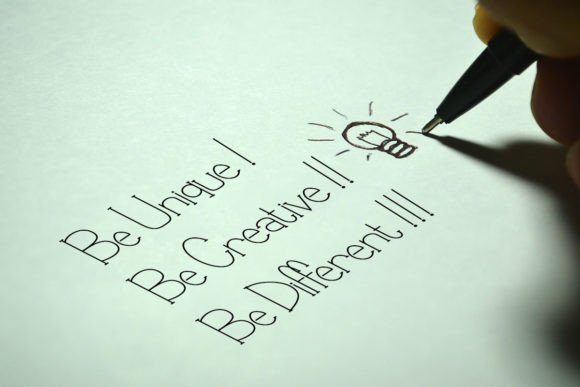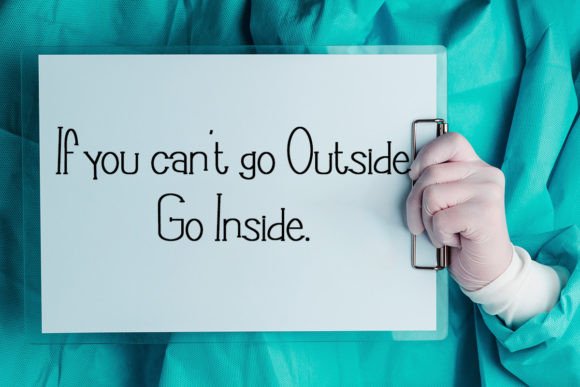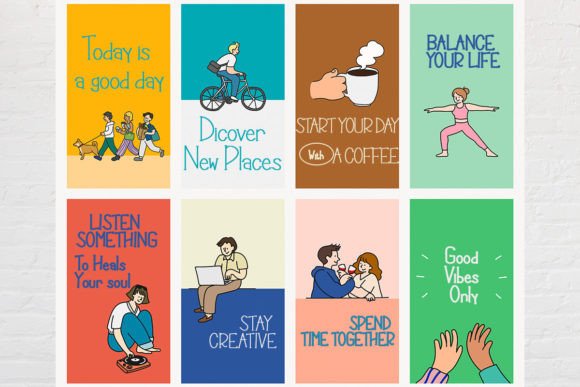
Introduction to Diary Book Font
Diary Book is a simple handwritten font.
It can easily be matched to a large spectrum of applications ranging from greeting cards to kids’ crafts and is guaranteed to add a friendly touch to your next design .
Key Features of Diary Book Font